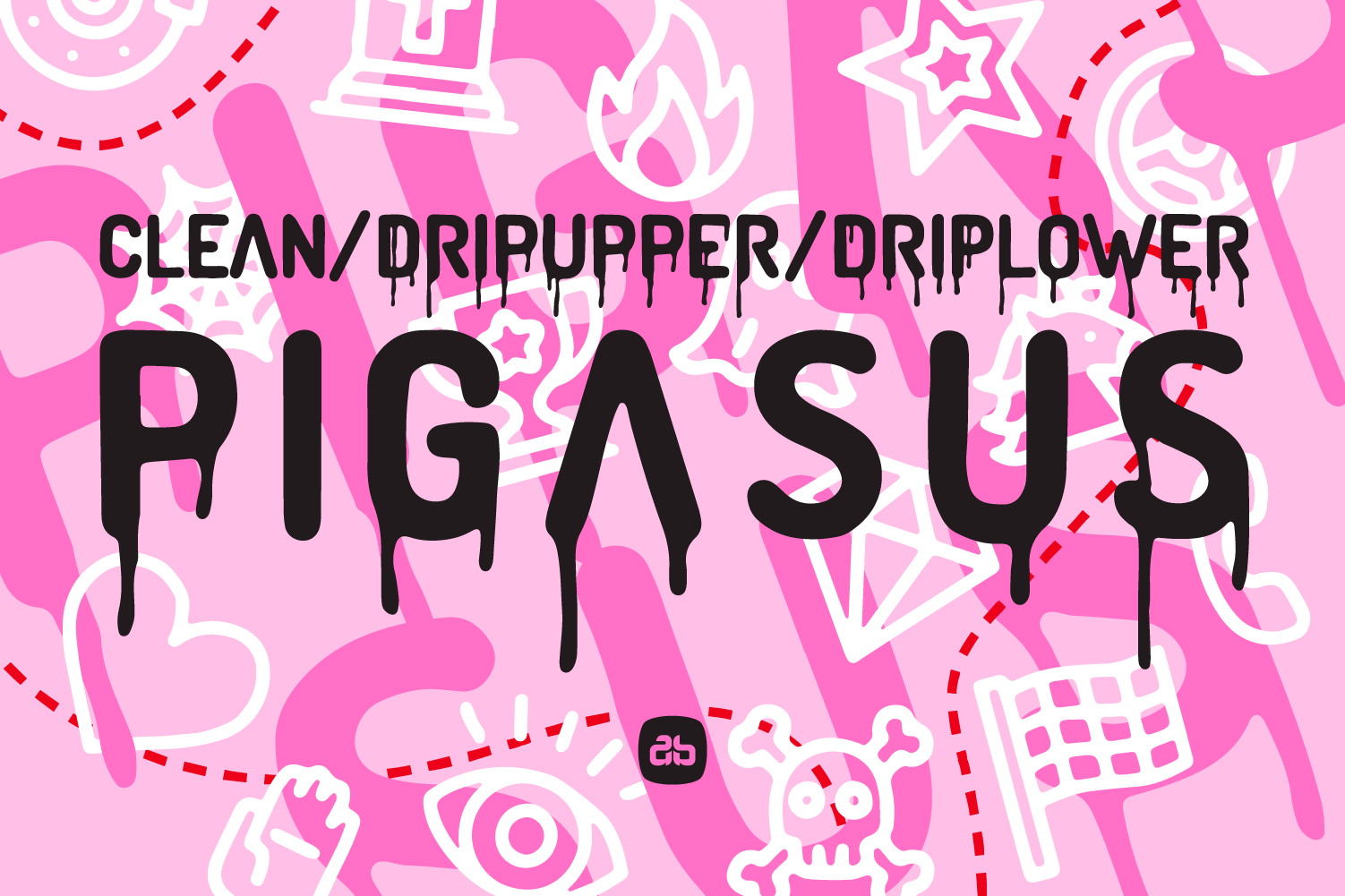
PIGASUS Clean & Drip Font
PIGASUS
The typeface "Pigasus" was created after I saw the Ken Block Pikes Peak Porsche, nicknamed "Hoonipigasus," which was decorated with a pink livery featuring graphics by Guccighost. The design incorporated black, white, and pink colors and utilized icons to create a textured background reminiscent of the Pink Pig Porsche racing cars from past but in a modern interpretation in my option.
The "Pigasus" typography was inspired by hand-rendered visuals with a "drip" effect, created from Procreate renders and transformed into a high-quality vector font you can experiment with.
"Plain" version features uppercase font without the drip effect, and the lowercase set consists of 26 hand-drawn icons.
"Drip" version offers two variations of the uppercase font with the dripped effect, allowing for mixing and matching of styles.